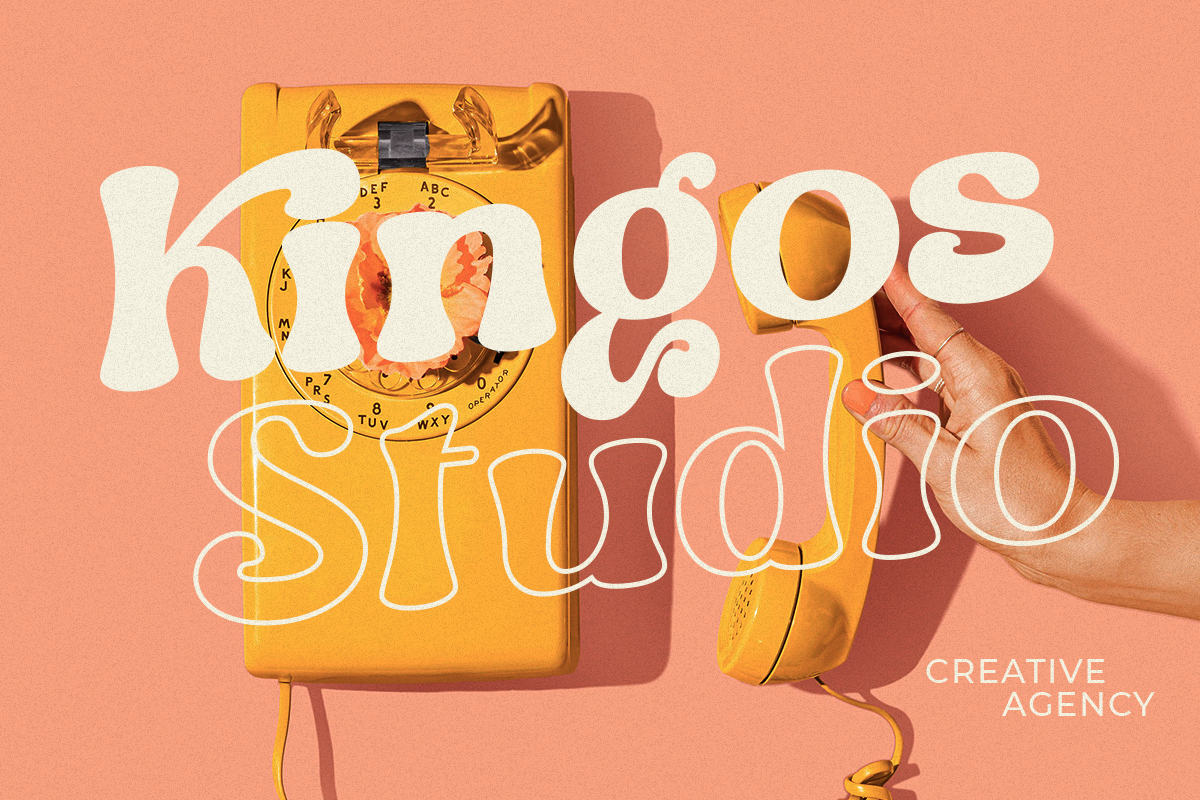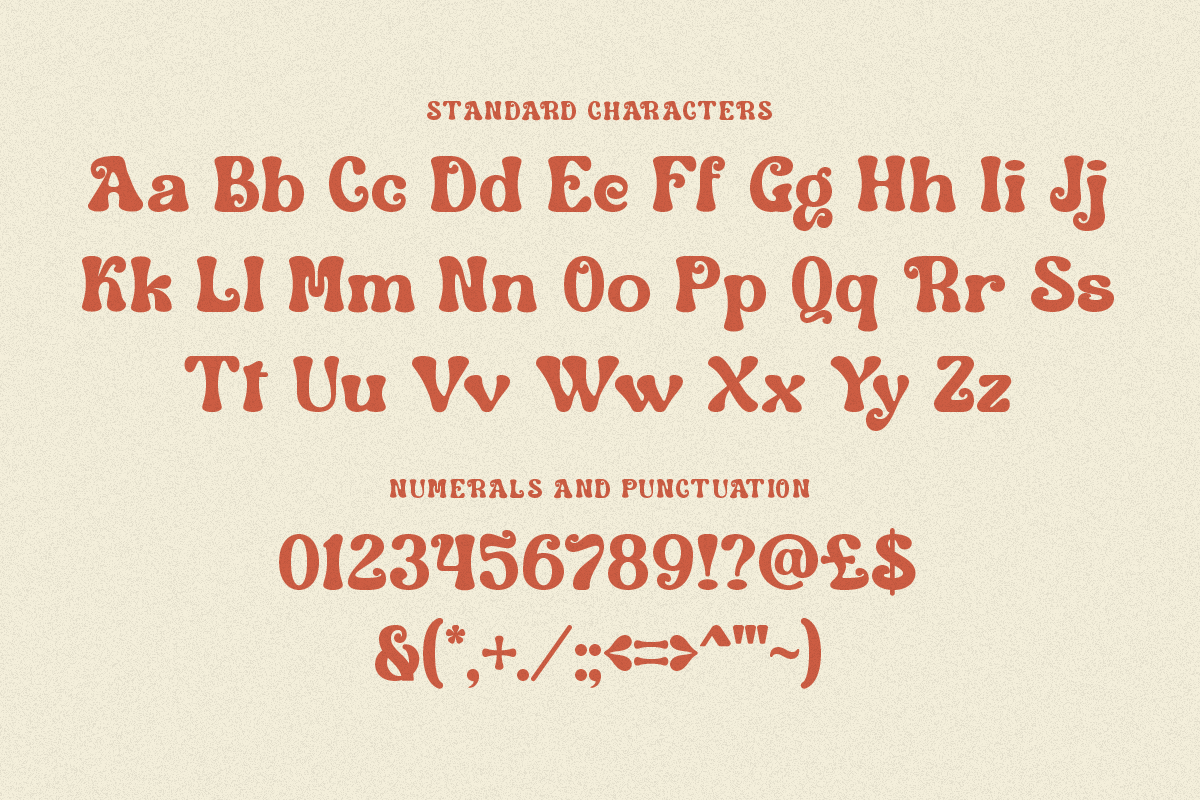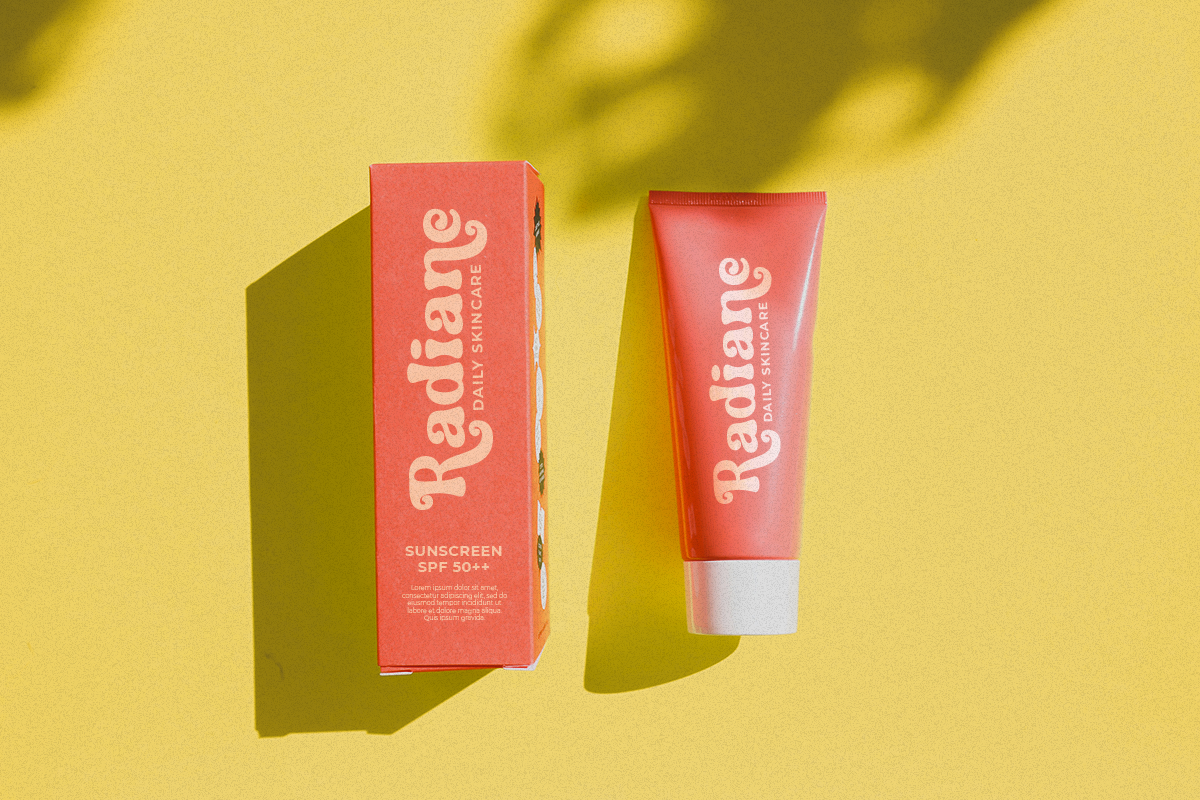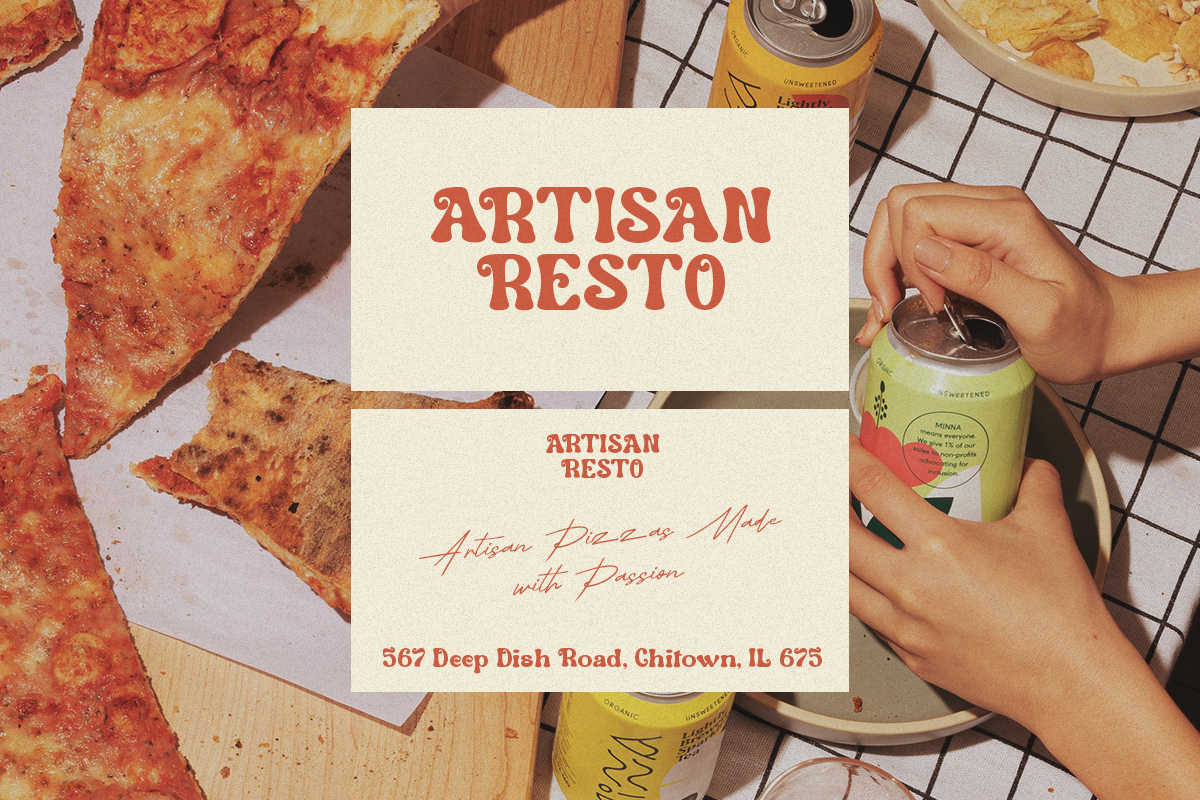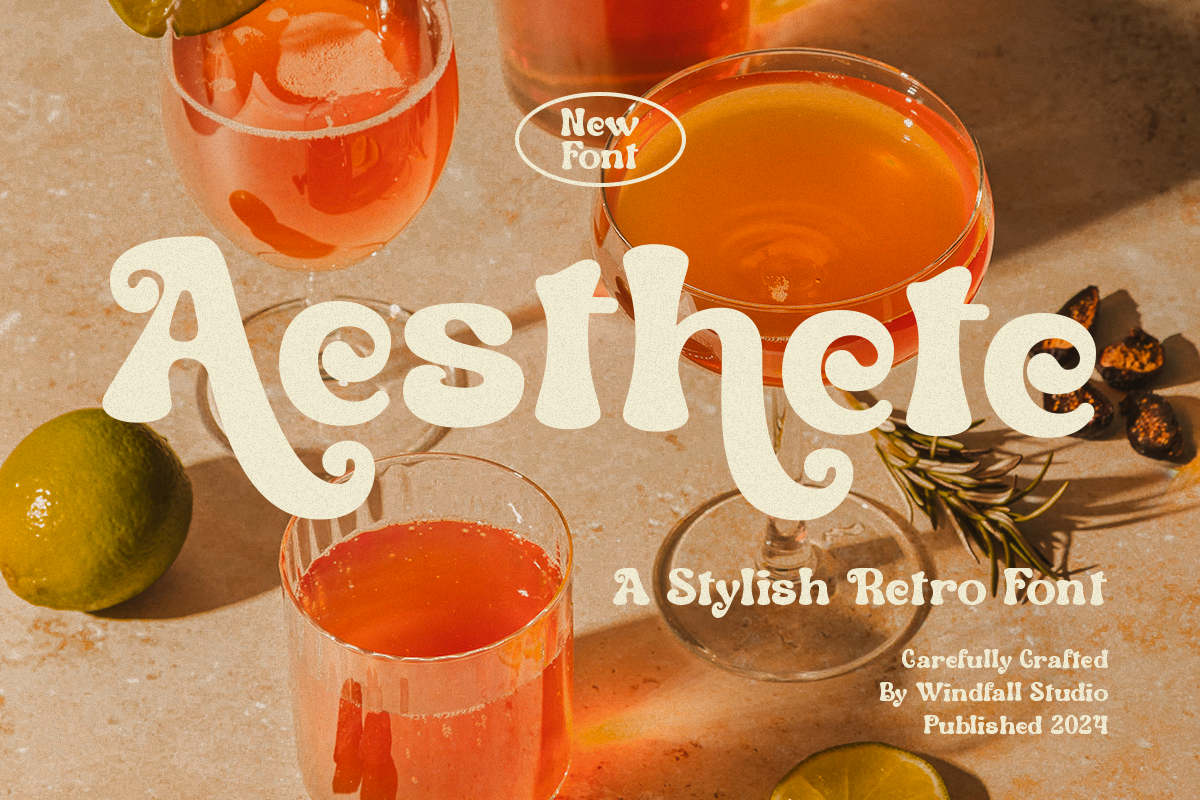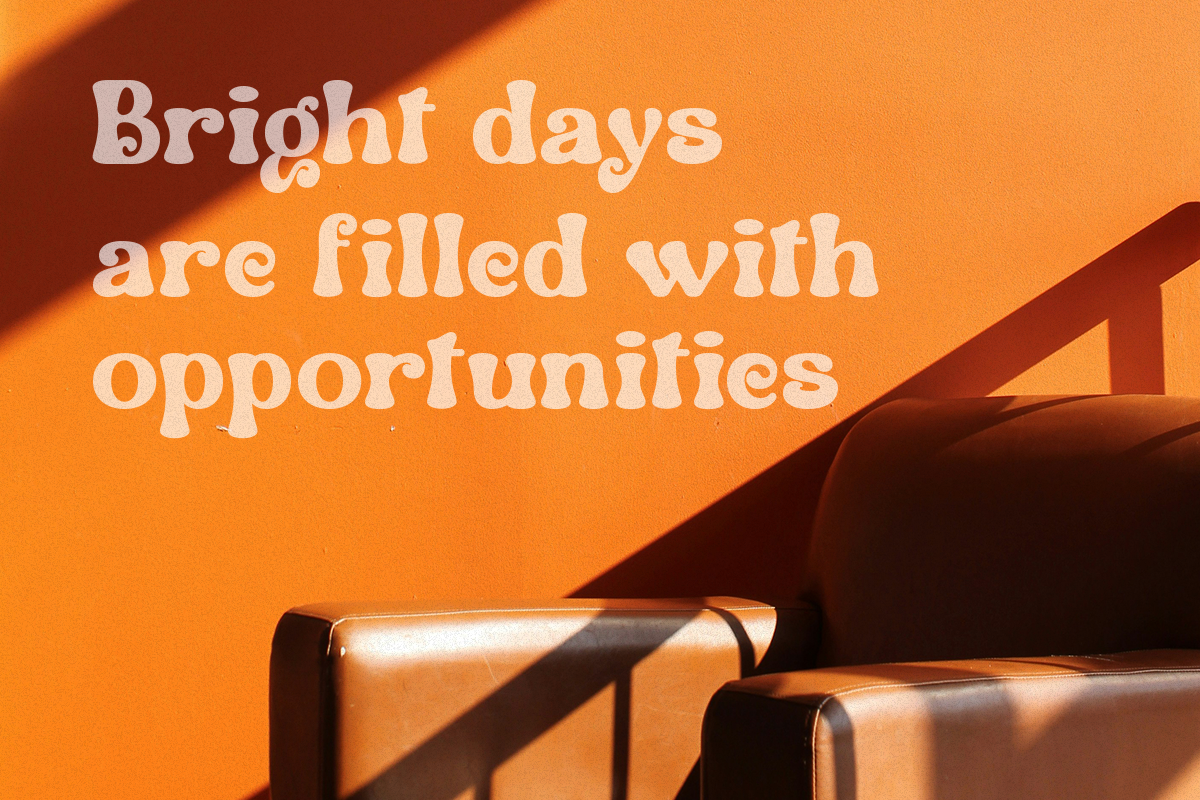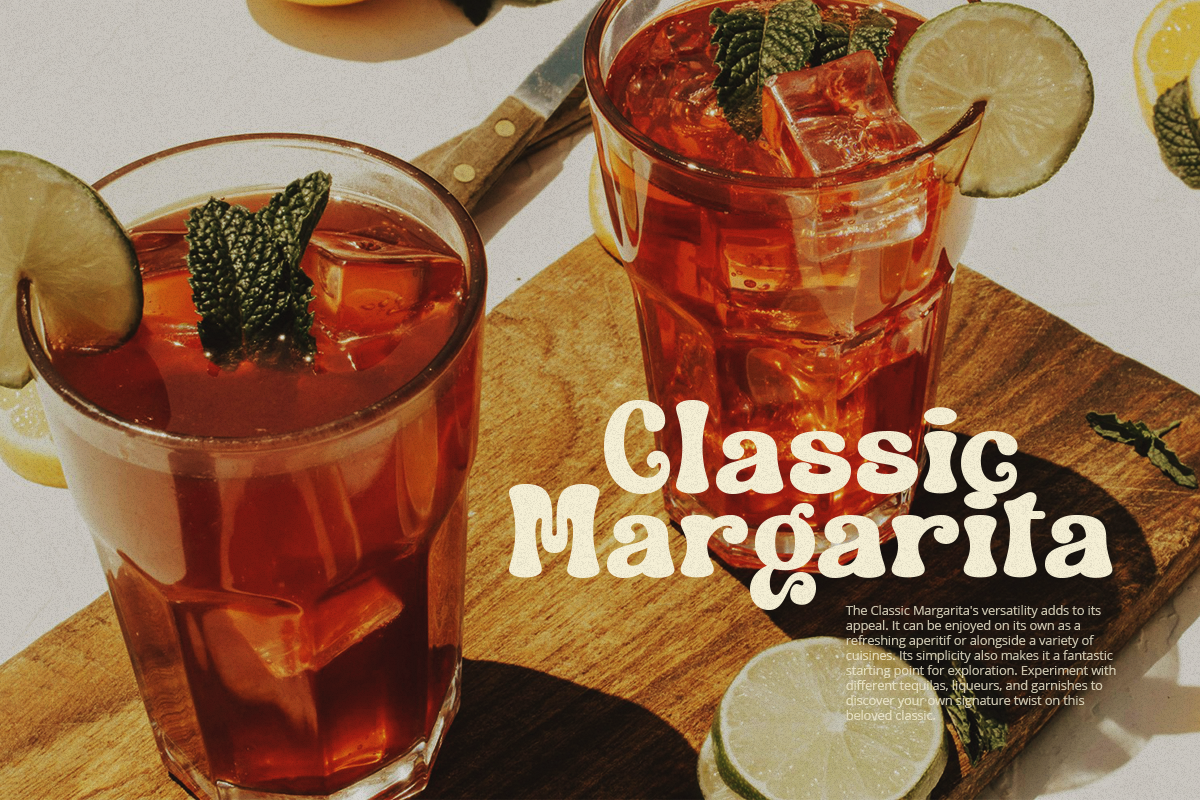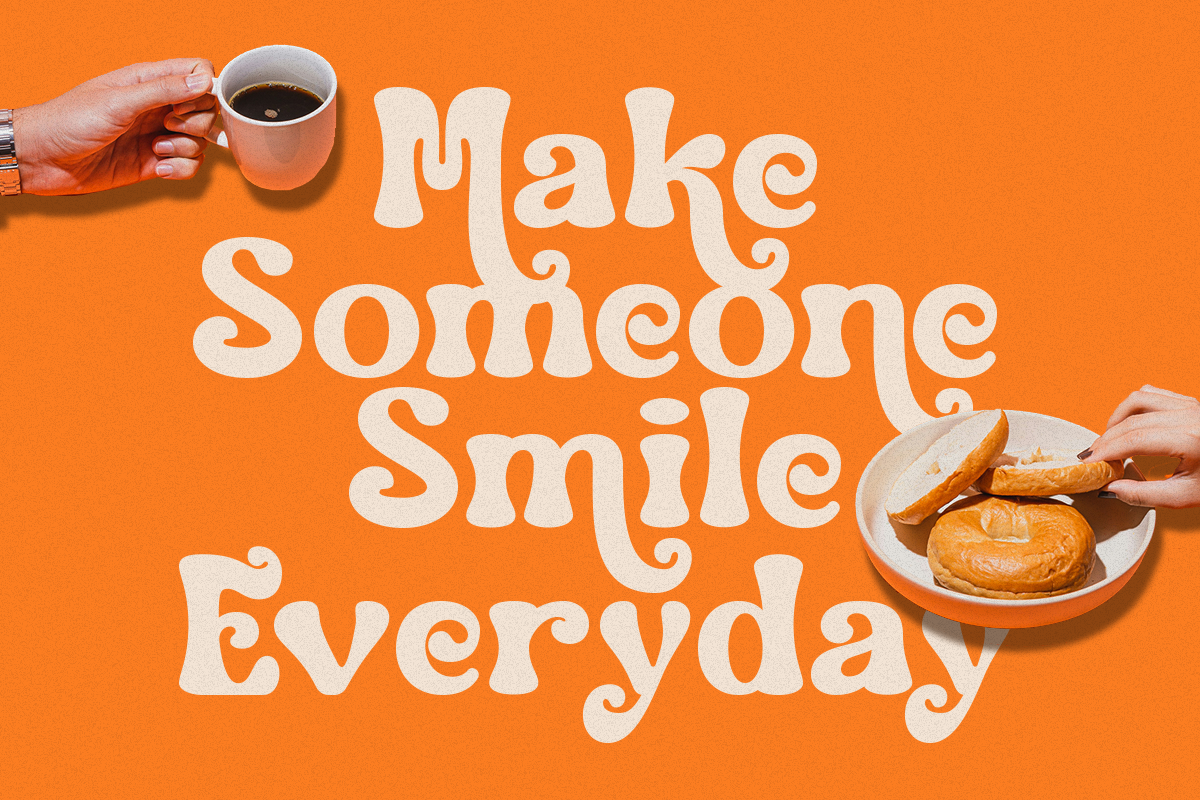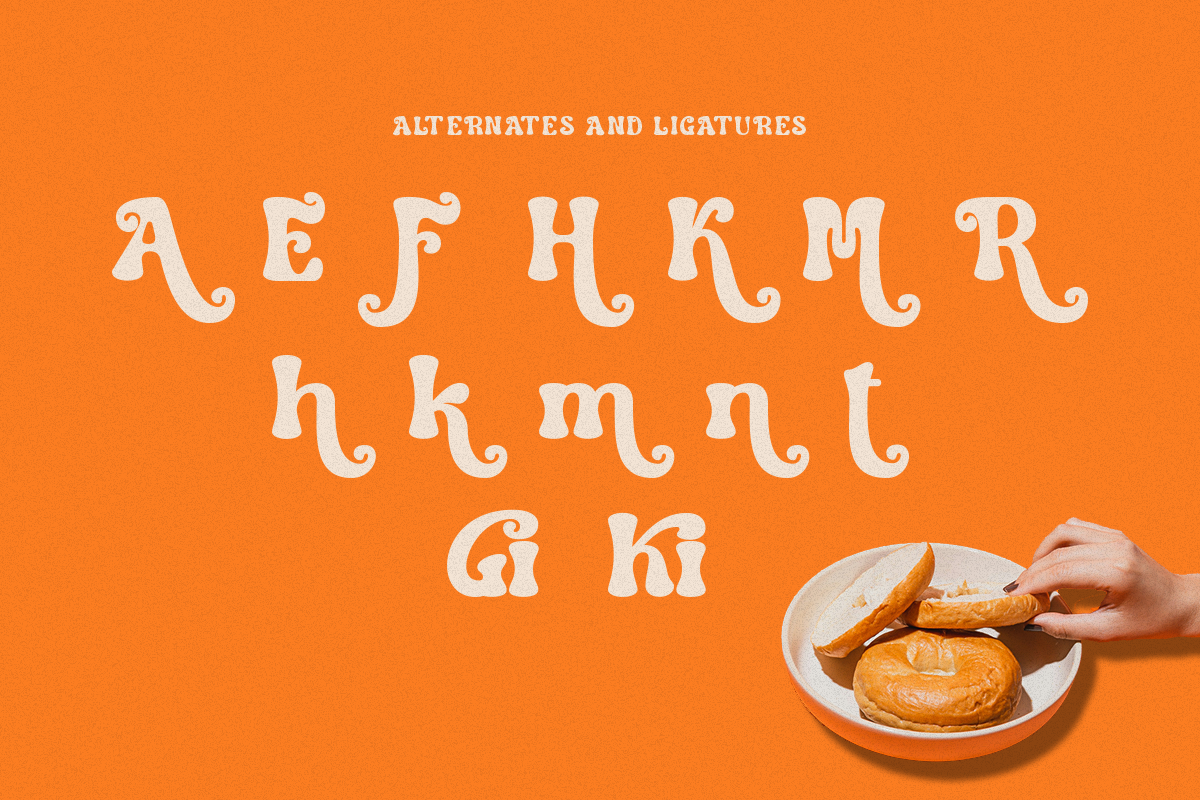
Aesthete - Retro Rounded Typeface
Aesthete is a retro rounded font that captures the essence of vintage typography with a modern twist. Its rounded edges and playful curves evoke a sense of nostalgia while maintaining a contemporary appeal. Perfect for adding a retro touch to your designs, Krone brings a sense of warmth and charm to any project.
Aesthete Features: